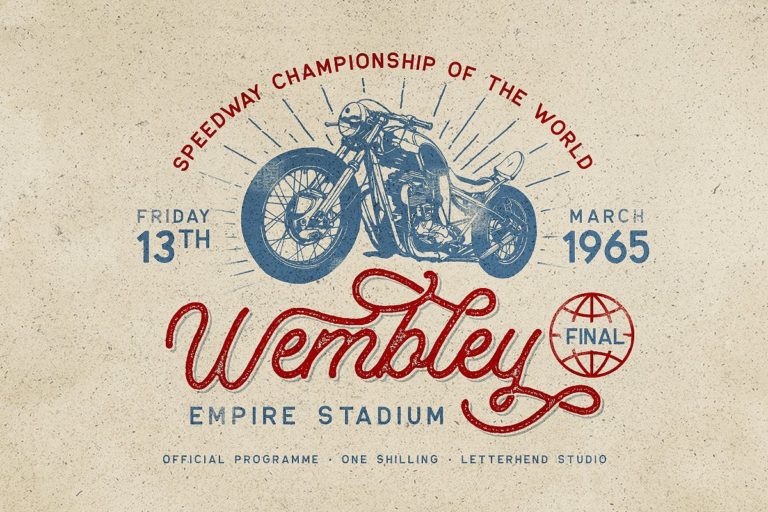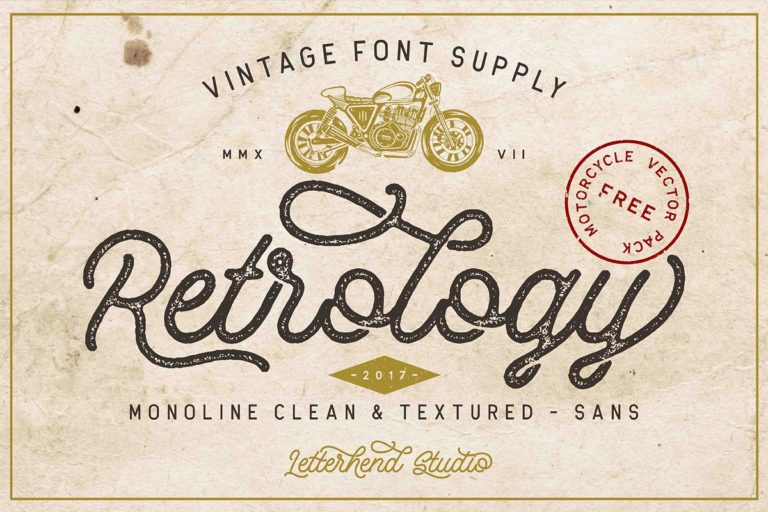
Retrology
Retrology Monoline Script
So classic, so retro… it’s Retrology! Introducing, Retrology. This monoline typeface will bring you to the good ol’ days with its classic touch!